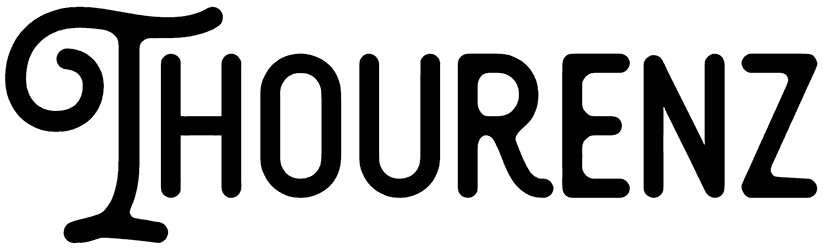
Thourenz Font
It’s just not that common for a font to be so diverse in style, but that happens to be the case with Thourenz. Its first set of uppercase works as a swirly font with tons of retro vibes to bring to your fancy artwork.
Then there’s the other style, made as a sans-serif font, smaller than the other capitals. The lowercase is unavailable, but pair these paradoxical caps with your clothing labels, posters, or gift shop logo, and enjoy.
Introducing Thourenz, a monoline vintage typeface combining with the modern typography style. Thourenz comes with 6 style (Regular, Inked, Rough, Stamp, Outline, Outline Rough). It is perfect to create a beautiful vintage typography on your any project like t-shirt, merchandise, logo, label, poster, magazine, packaging, quotation and more.
Thourenz is all-caps font, has 500+ glyphs including many openType features and underlines that you can mix and match each character to get the more playful vintage design.